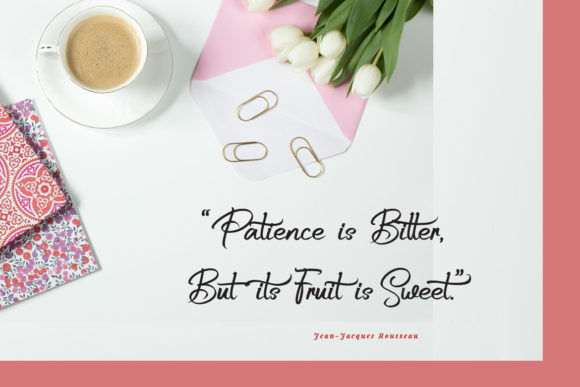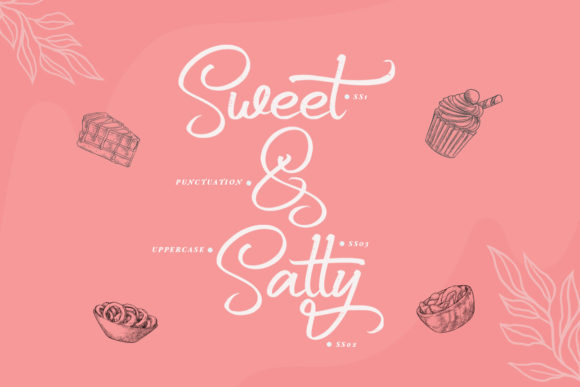
Butter Milky Font
db-ku.com - Script & Handwritten -- Butter Milky is a gorgeous script font. It is perfect for any branding project such as logos, t-shirt printing, creative products, and more.